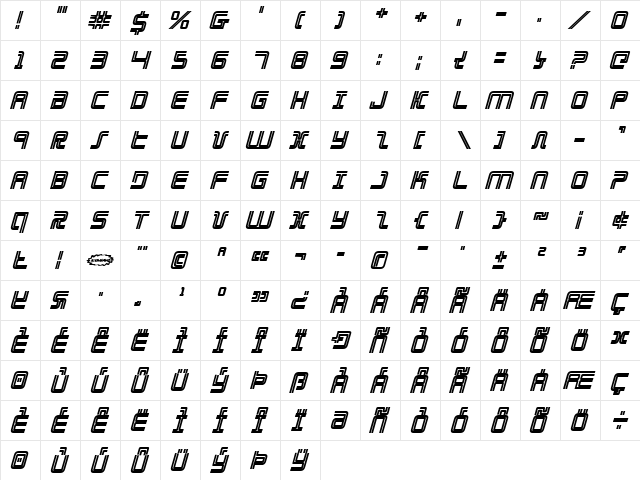
Election Day Bold Italic Font Preview
Design Context for Election Day Bold Italic Typeface
Election Day Bold Italic is a composed and adaptable typeface that performs quietly and consistently across a wide range of design contexts. Its italic angle brings a sense of urgency and motion to the letterforms. The heavy weight commands attention and anchors typographic hierarchies.